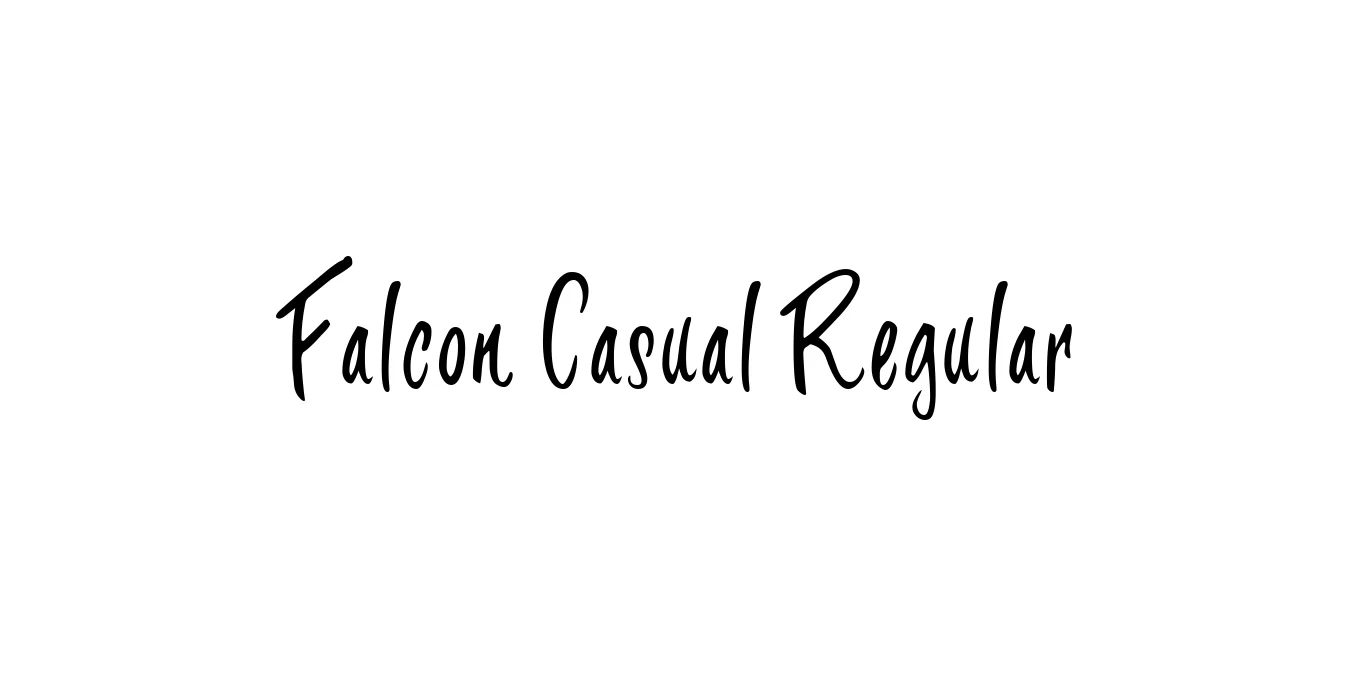
Falcon Casual Regular
Designed by Brian J. Bonislawsky
Falcon Casual Regular is a spirited and fluid script typeface that draws heavy inspiration from the classic era of mid-20th-century sign painting and brush lettering. Its design focuses on emulating the natural, rhythmic flow of a hand-held brush, creating a balance between professional precision and a relaxed, approachable aesthetic. The typeface features distinctively rounded terminals and a consistent slant, which helps convey a sense of motion and personality that is often missing from more rigid digital fonts.
Originally developed to capture the retro charm of vintage advertisements and local storefront signage, Falcon Casual has become a popular choice for modern designers seeking a nostalgic yet clean look. It is particularly effective when used for display purposes where a human touch is required to soften the visual impact. The font's legibility remains high despite its informal construction, making it a versatile tool for everything from casual event headers to stylized editorial layouts.
Falcon Casual Regular Best Uses
Ideal for creating friendly and approachable brand identities.
Perfect for storefronts and event banners that require a hand-painted look.
Great for eye-catching quotes and engaging graphic posts.
Adds a personal, informal touch to party and wedding stationery.
Works well for retro-themed posters and promotional flyers.